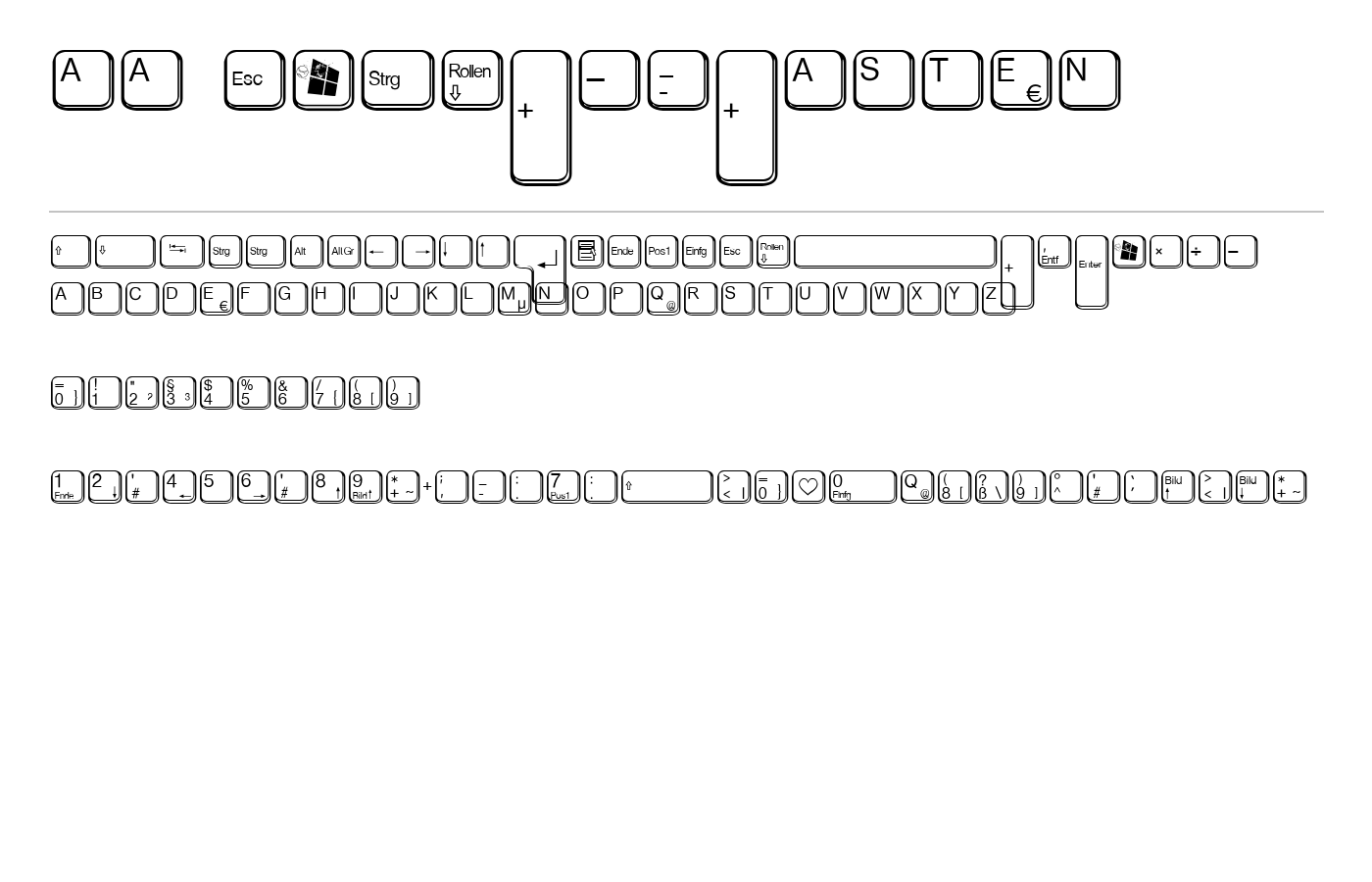
The aa QWERTZ-Tasten Font is a monospaced, sans serif typeface designed to mimic the appearance of keyboard keys with a clean, geometric style. Its consistent weight and contained letterforms create a technical, modern, and functional feel, making it ideal for digital interfaces, tech branding, or projects related to computing and typography. This font works best in contexts where a clear, structured aesthetic is needed to evoke precision and digital utility.
aa QWERTZ-Tasten Font
About aa QWERTZ-Tasten Font
| Font family | aa QWERTZ-Tasten Font |